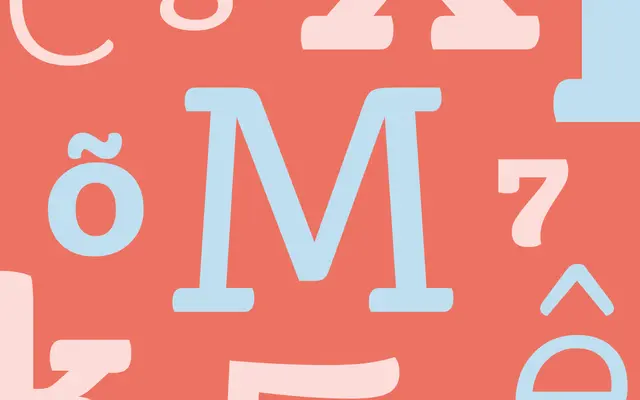
Gelo
Dalton Maag · Tom Foley, Selma Losch · 2017
A brush-meets-slab serif by Tom Foley and Selma Losch, expressive enough for packaging and editorial yet structured enough for text.
A hybrid serif by Tom Foley and Selma Losch that grafts the elegance of brush lettering onto a slab-serif skeleton. The mix gives Gelo an expressive headline voice while keeping the rhythm needed for branding, editorial, catalogues and children's books. Italics and a Latin character set round out a family Dalton Maag describes as flexible and warm.
Dalton Maag positions Gelo as a hybrid that combines brush lettering elegance and playfulness with the structure and versatility of a slab-serif.